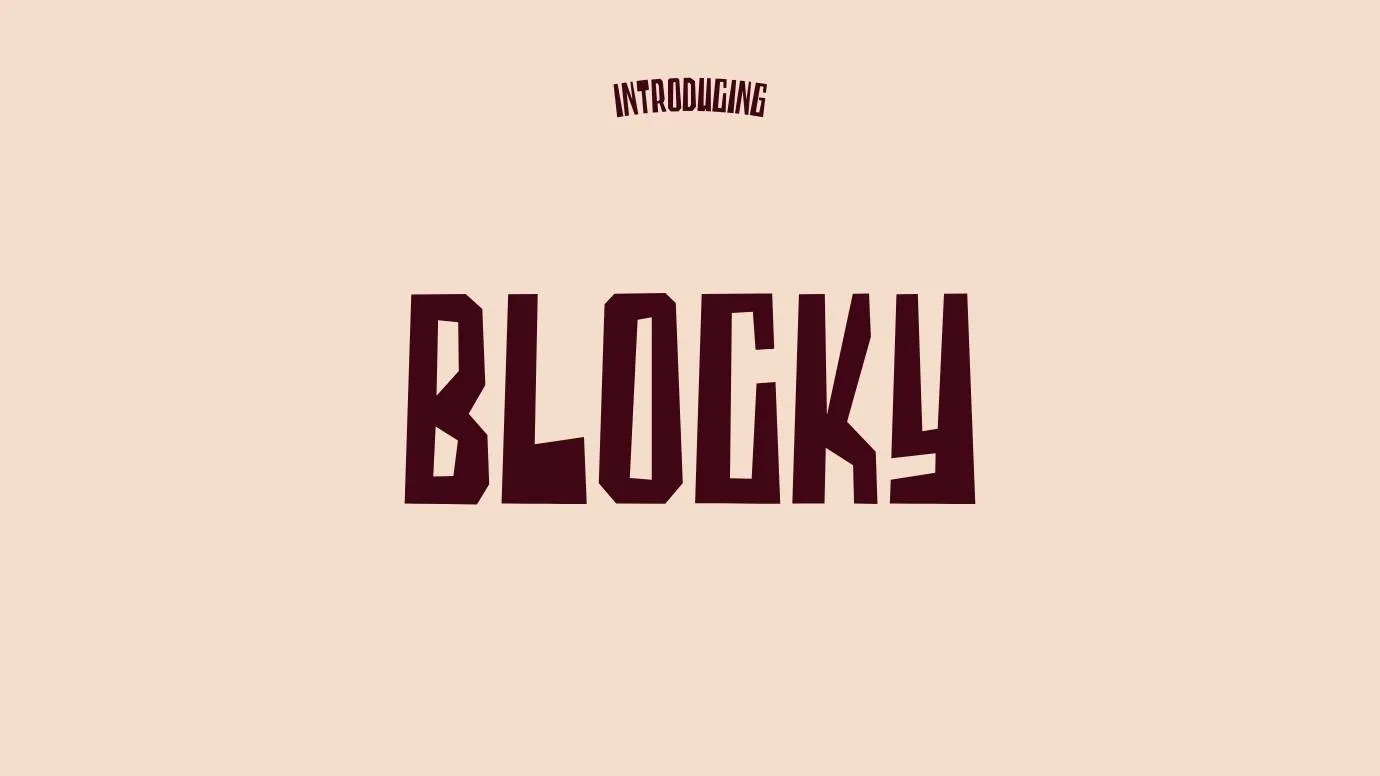
Blocky Font Family is a modern typeface for our all audience. Risman Ginarwan is a brillient mind designer who took charge of the creation of this typeface. After this, the designer finally released this typography through Garisman Studio.
This fancy look typeface is classified as the cartoon category of fonts. Here, the cartoon fancy font is similar to this typography. This awesome typeface is attainable in OTF, TTF, and WOFF file formats.
Blocky Font